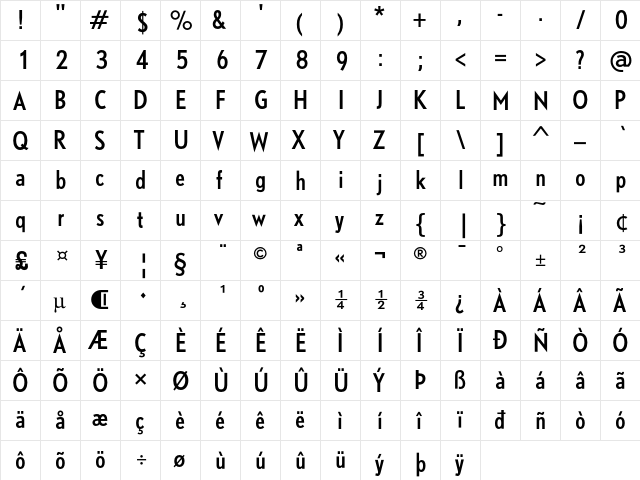
DTLNobelT Condensed
Design Context for DTLNobelT Typeface
DTLNobelT takes a measured approach to typography — its balanced proportions and neutral character make it a reliable workhorse for both digital and print work. Its narrow stance lets it pack a punch even in space-constrained designs.